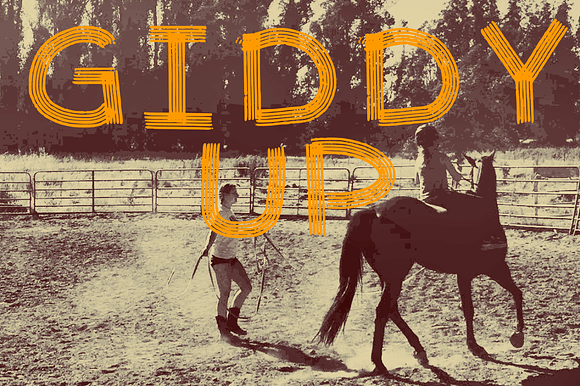
Giddy Up Font
Giddy Up Font by CelesteDuffy is a font selected for branding, posters, packaging, typography.
Why Giddy Up Font is worth a look
Giddy Up Font by CelesteDuffy fits naturally into Branding, posters, packaging, typography.